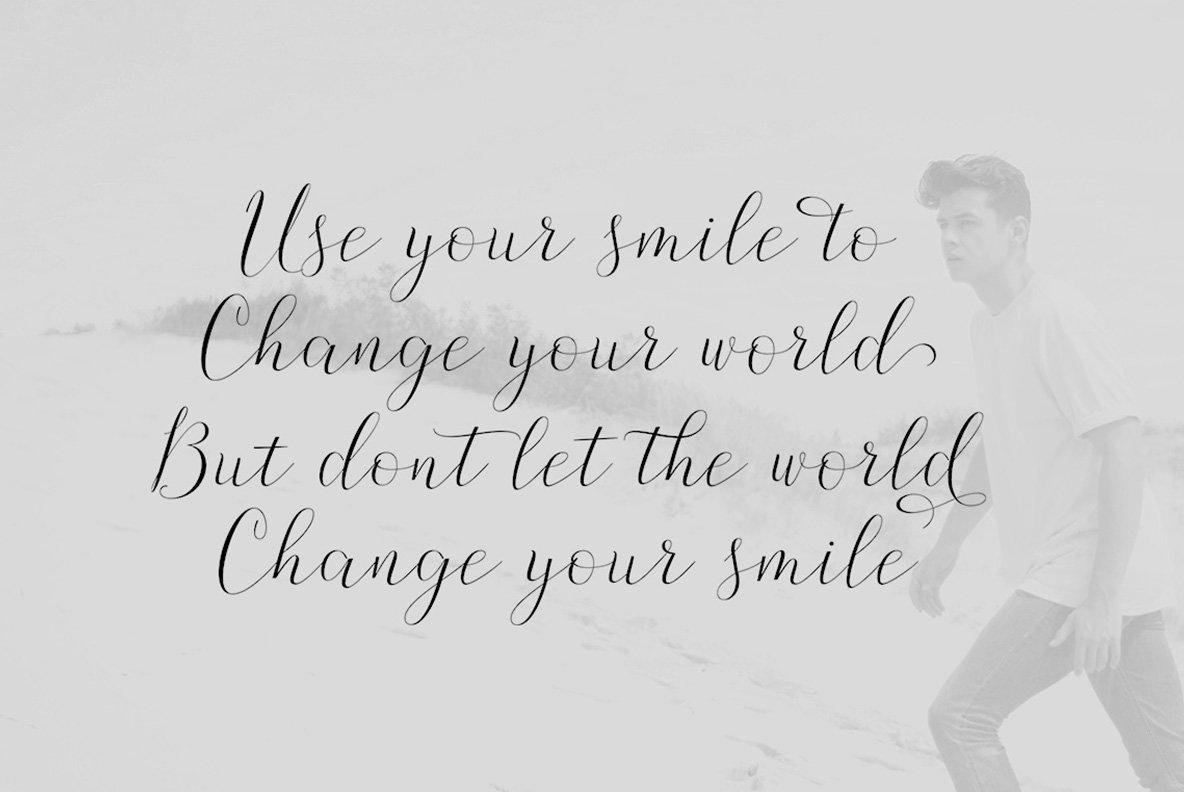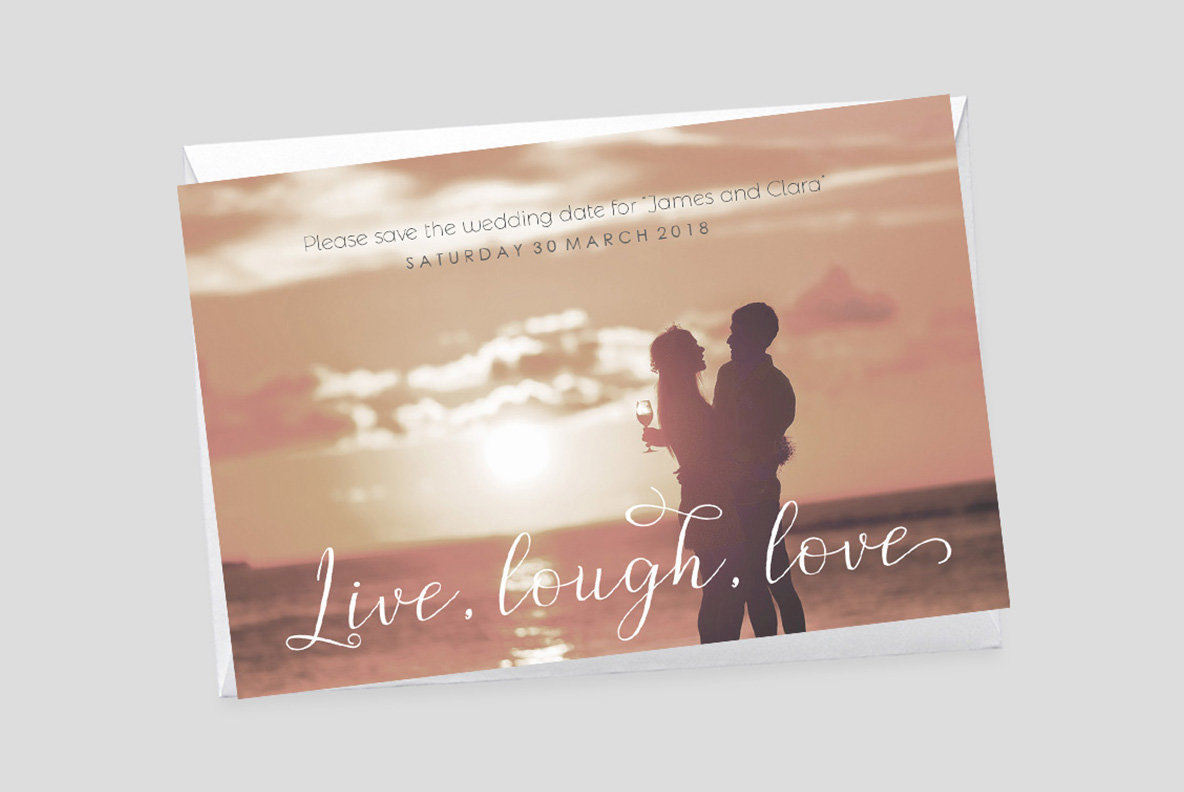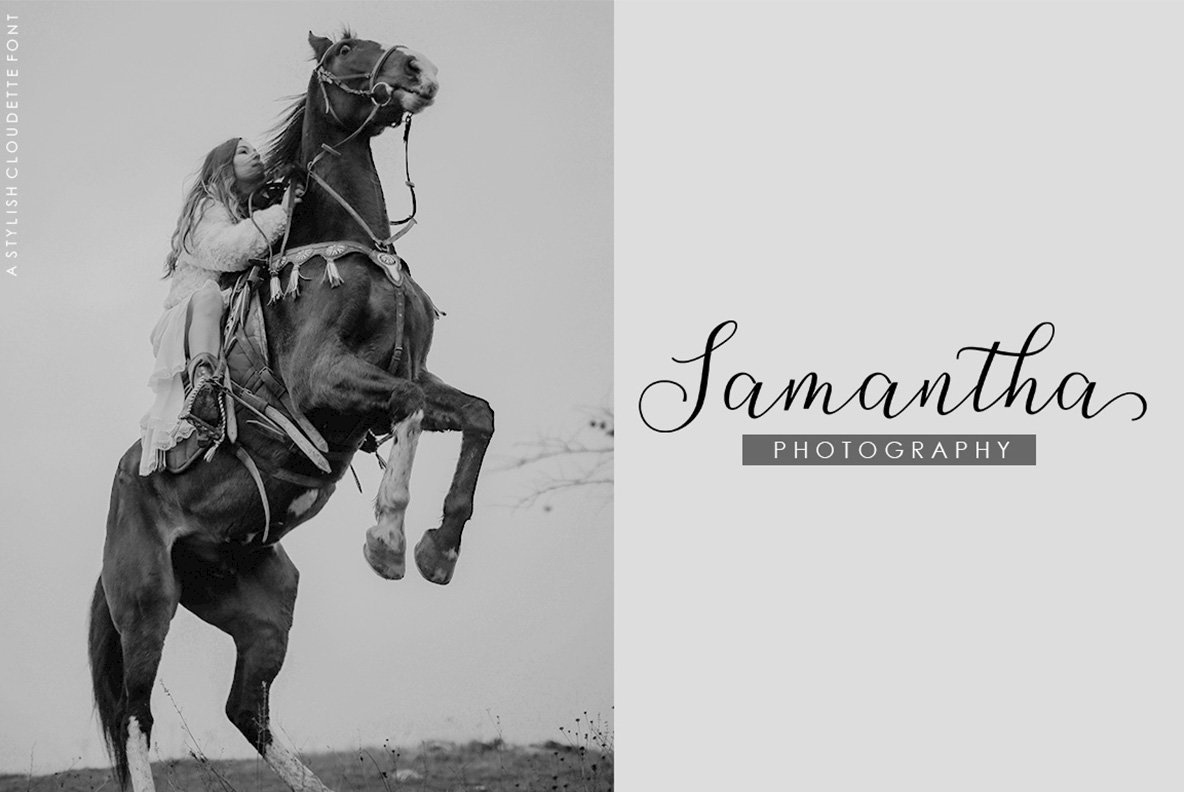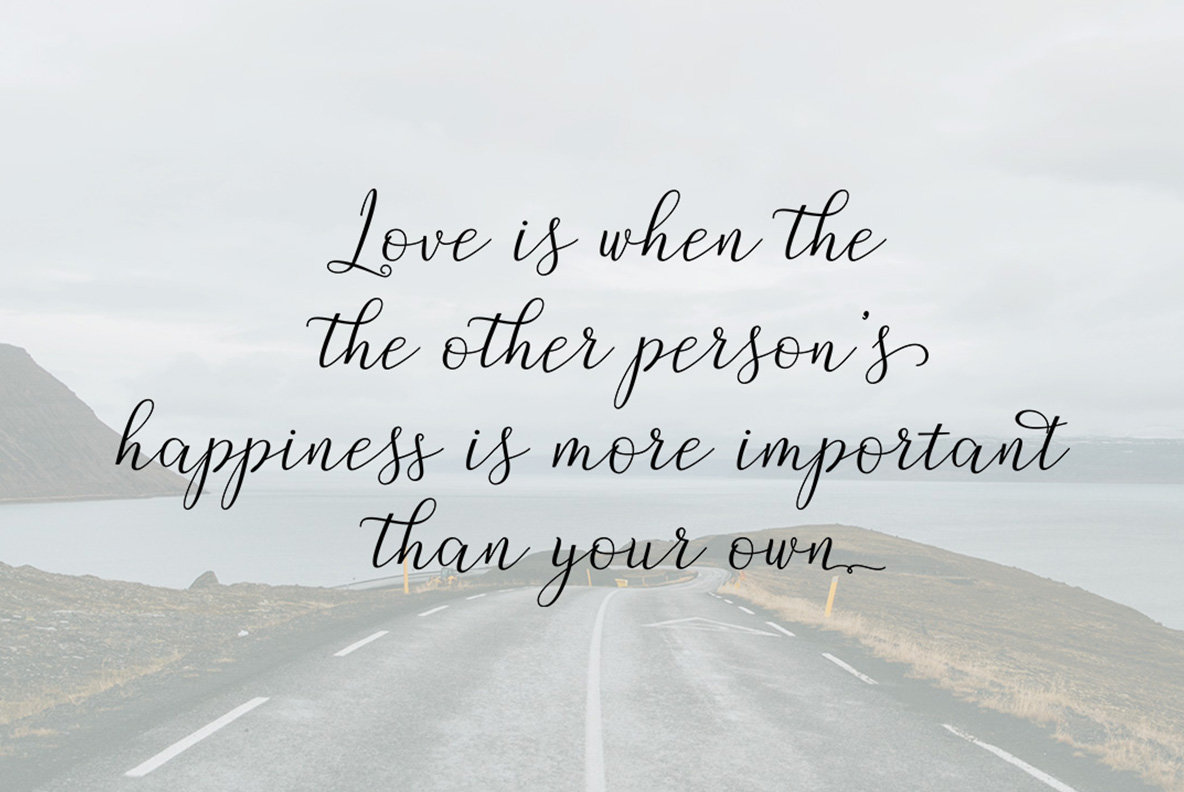
Claudette Script Font
Claudette Script presents a modern touch to classic calligraphy, available in both Regular and Bold Script styles. This elegant font is adorned with swashes, making it ideal for a wide range of applications. Whether it's crafting a sophisticated logo, designing product packaging, or creating wedding invitations, Claudette Script delivers with grace. This font thrives in designing platforms like Adobe Illustrator CS, Adobe InDesign, CorelDraw, and Microsoft Word from 2010 onwards. For users seeking to explore its full potential, guides on utilizing alternative characters with both Adobe Illustrator and Windows Character Map are available.Claudette Script: Elegant Modern Calligraphy